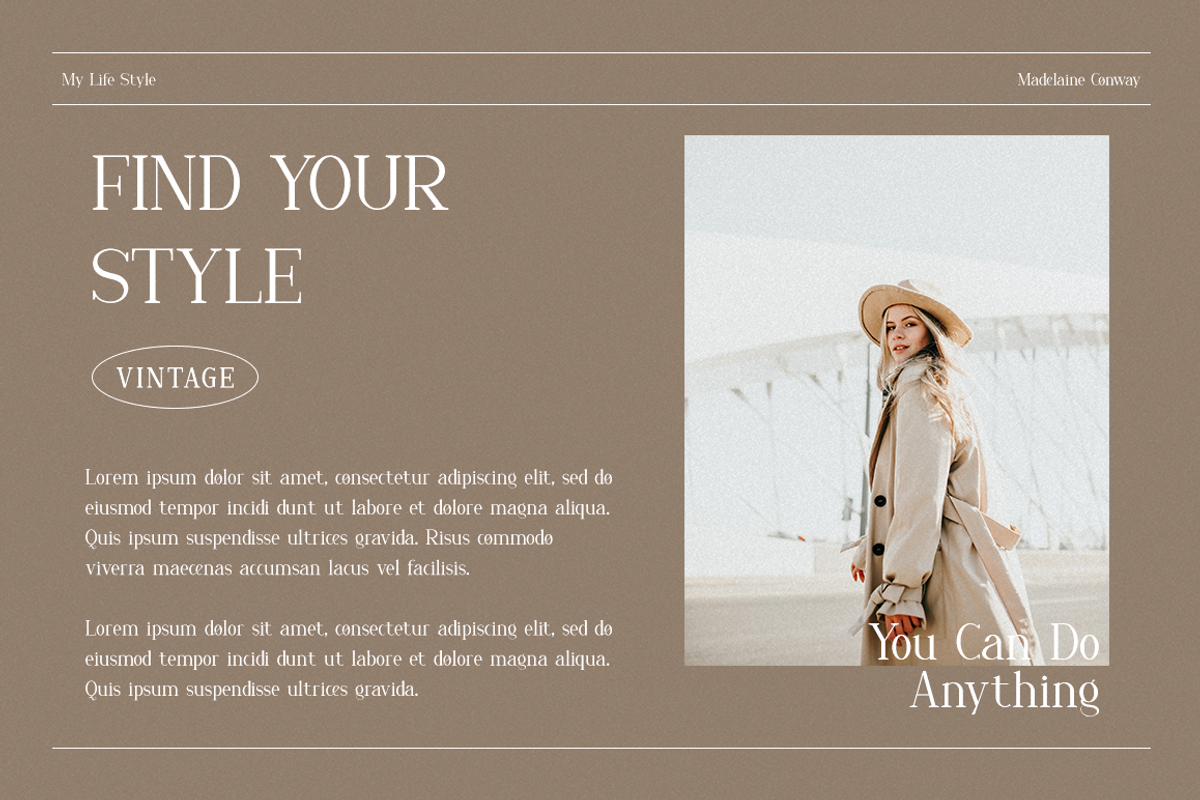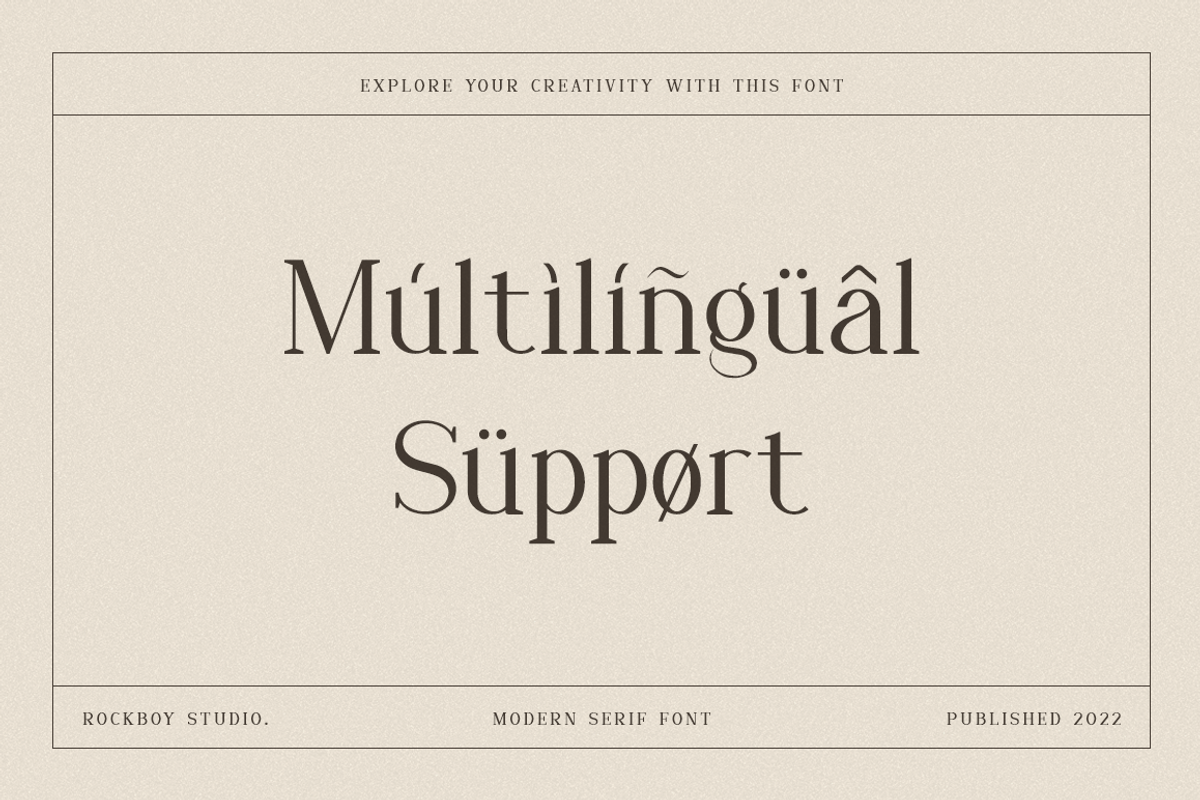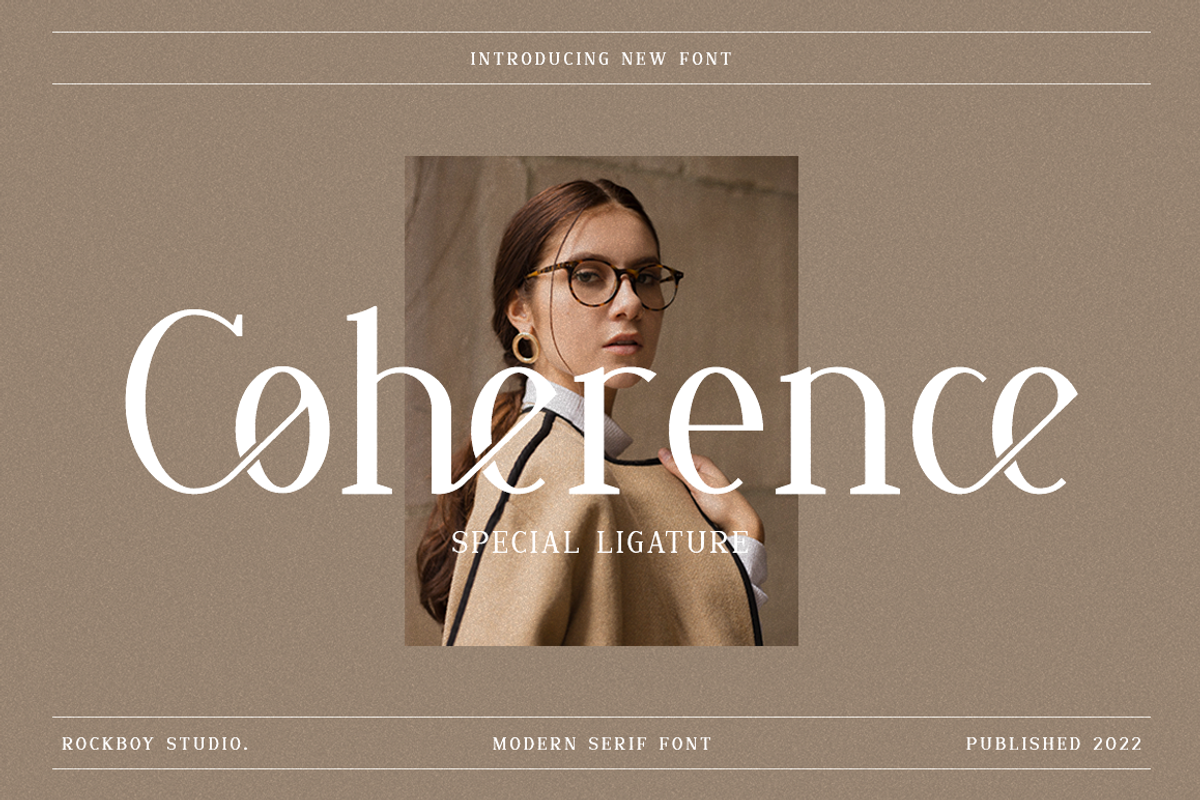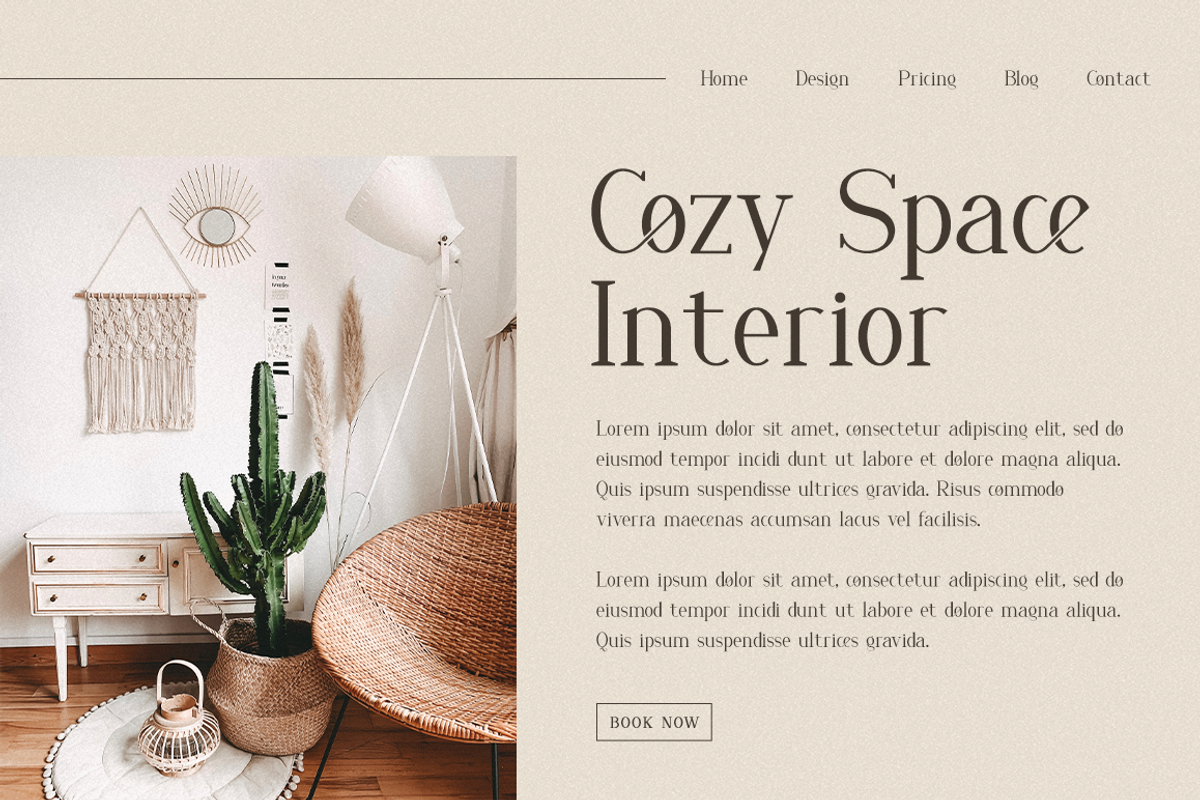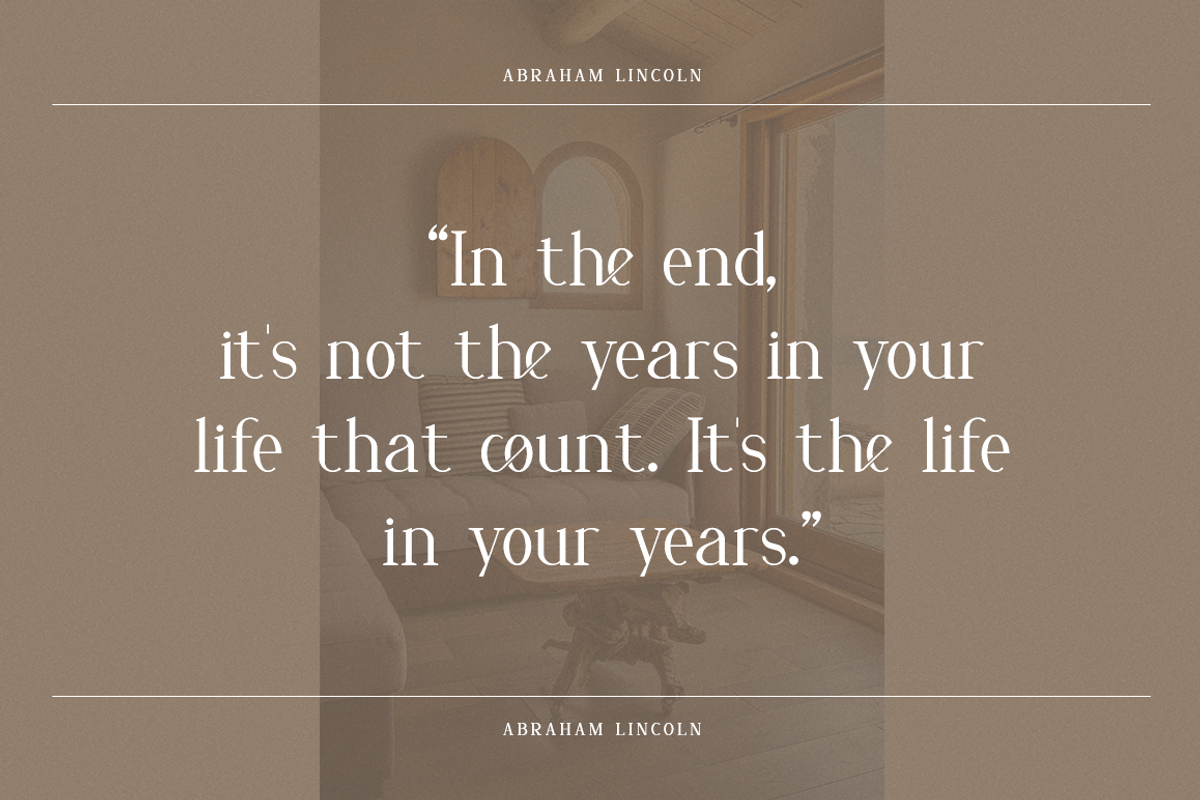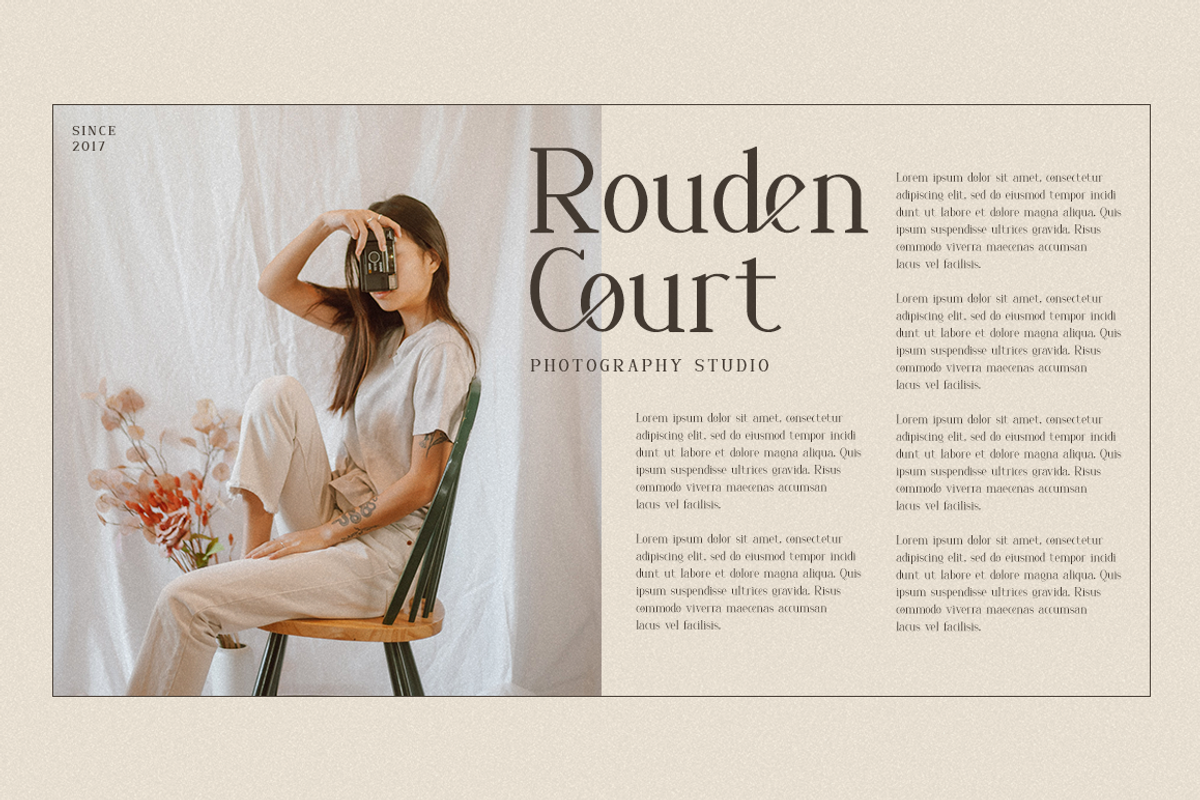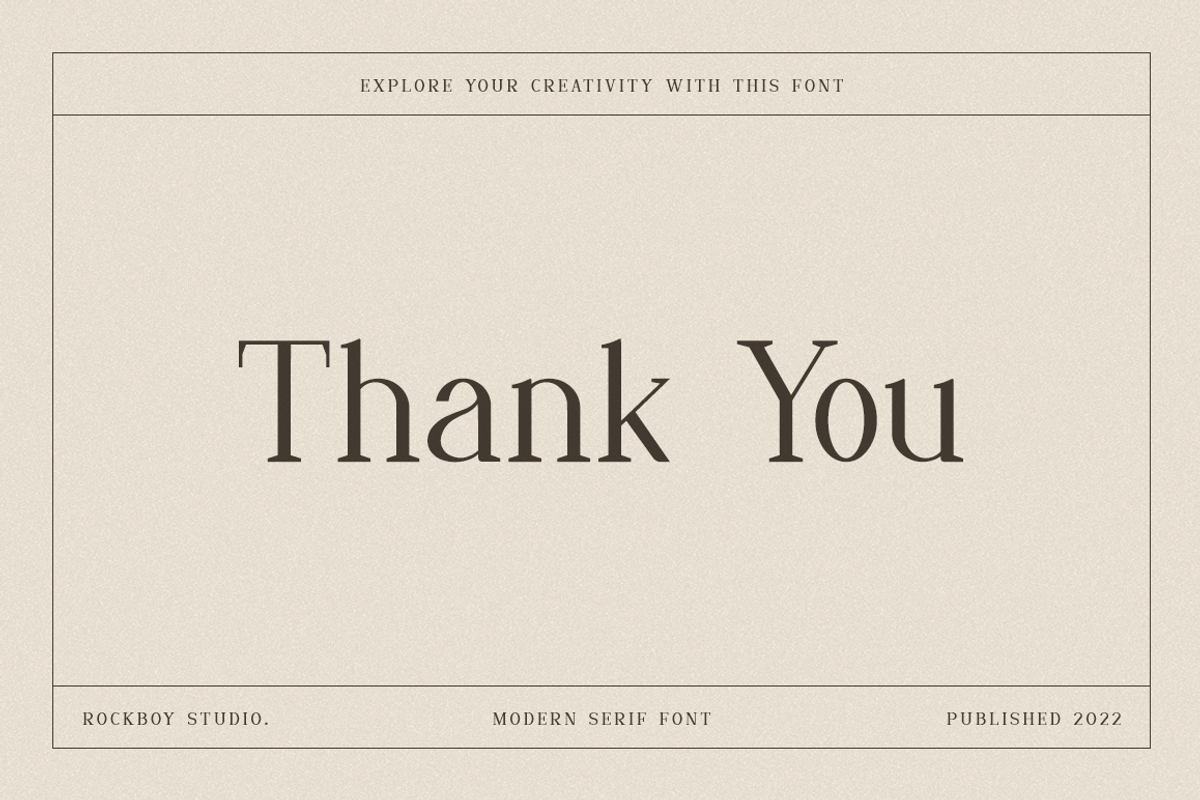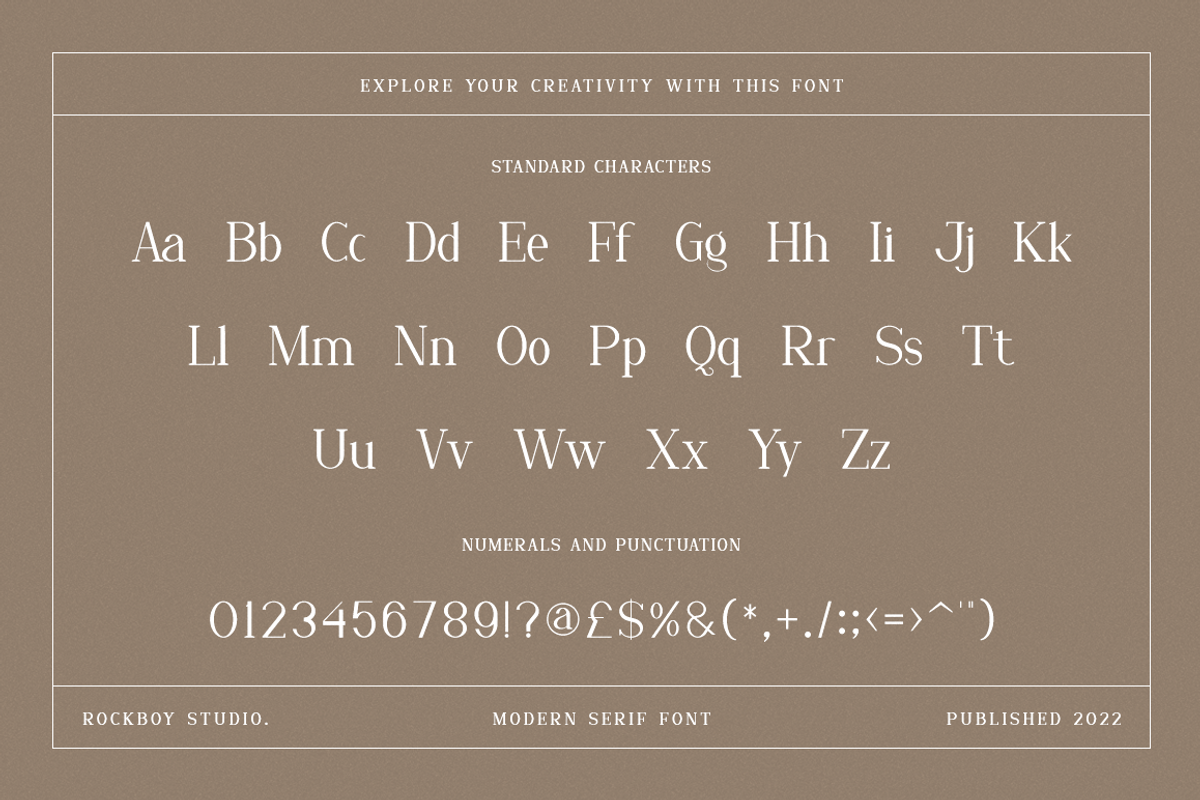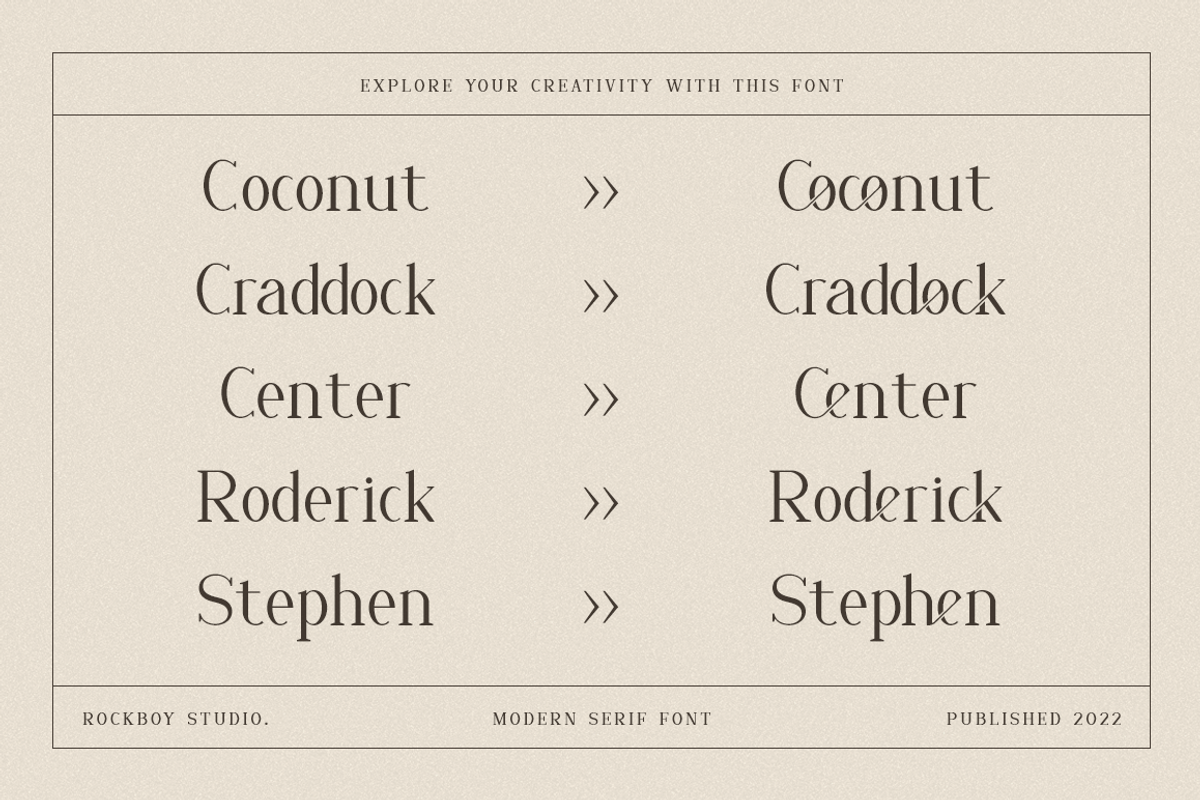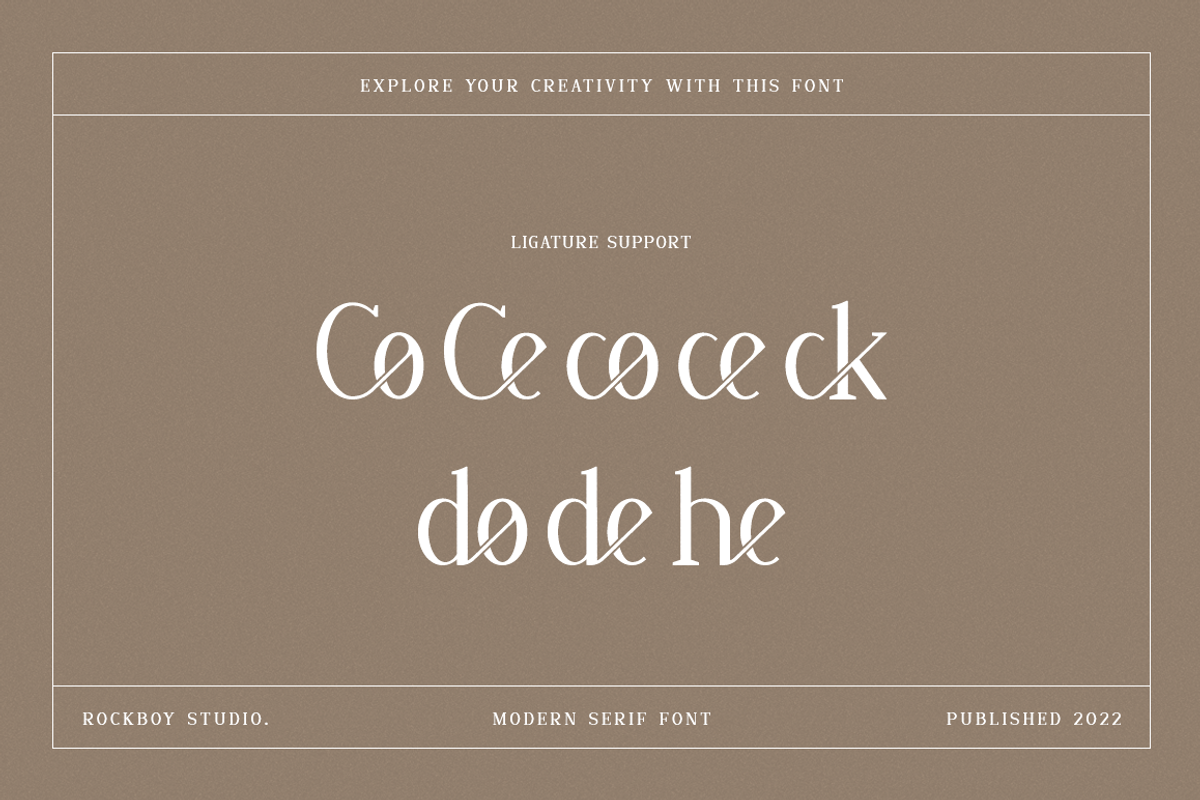
Coherence - Fashion Font
Coherence is an elegant and thin lettered serif font. It maintains its classy calligraphic influences while feeling contemporary and fresh. Fall in love with it and bring your projects to the highest levels!